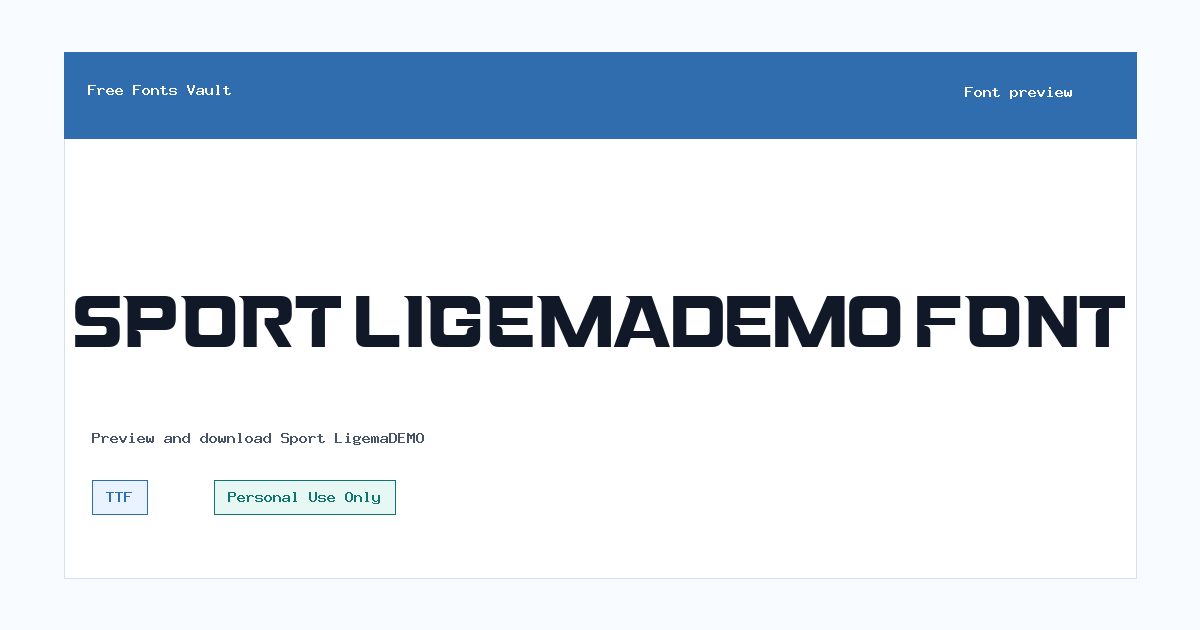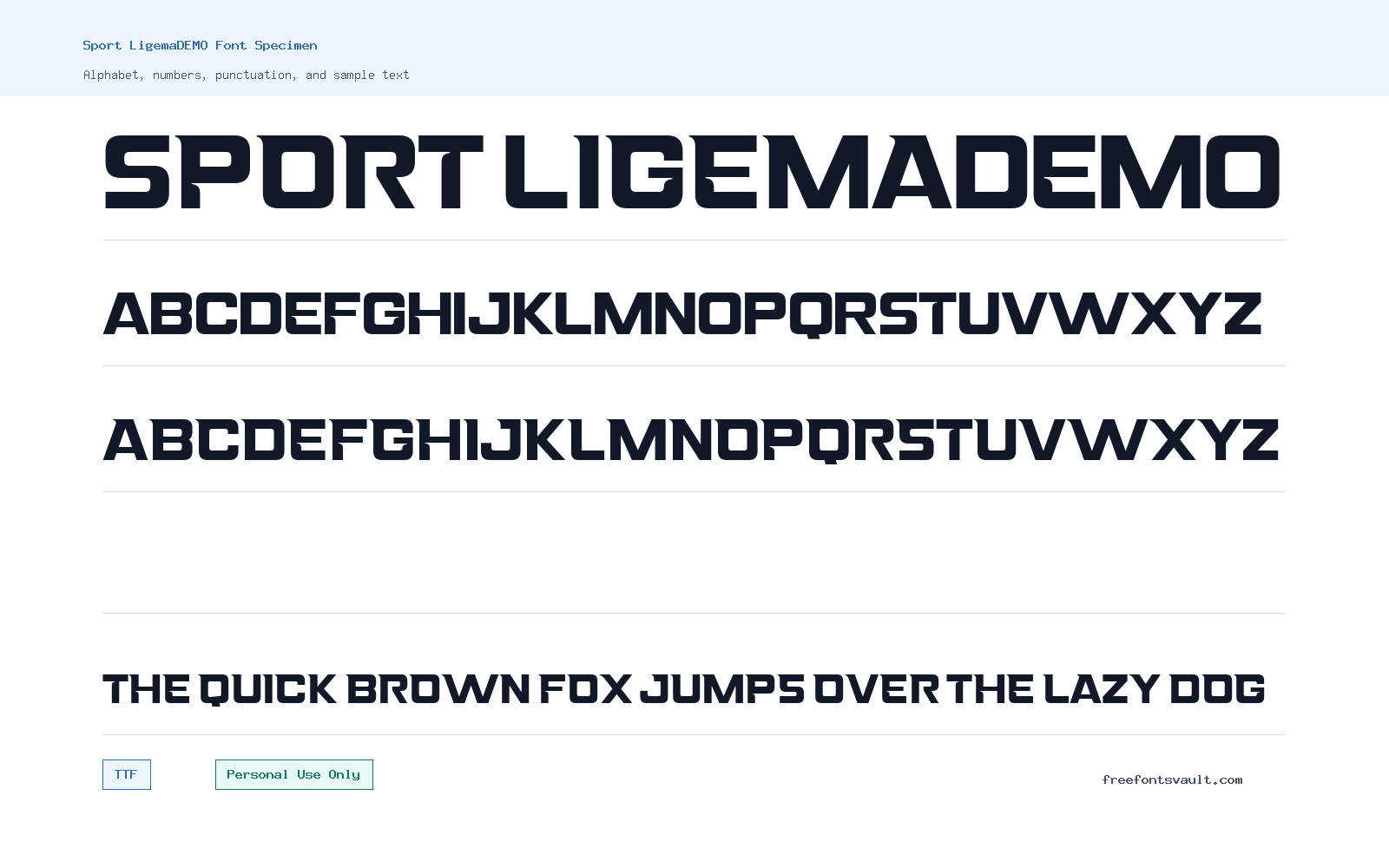
Sport LigemaDEMO
Sport LigemaDEMO font preview showing the family name
Sport LigemaDEMO Font
Sport LigemaDEMO font specimen showing alphabet, numbers, and sample text
Sport LigemaDEMO font.
Sport LigemaDEMO is a regular-weight TTF display font with a name and presentation that point toward athletic, team, and headline-style design work. It is best approached as a title font: use the preview tool to test short words, numbers, and logo-style layouts before downloading.
About Sport LigemaDEMO Font
Sport LigemaDEMO is listed as a display font and comes in a regular style with normal weight. The family name suggests a sports-oriented direction, so it may suit designs that need a strong title treatment, such as team graphics, match posters, jersey-inspired mockups, gym branding concepts, event headers, and social media artwork. Use the preview to judge it with your own wording. Try team names, initials, numbers, and short slogans to see how the letter spacing, curves, and overall rhythm work at different sizes.
For practical design work, keep Sport LigemaDEMO focused on display settings rather than long reading. Fonts made for titles often look best when they are used in short bursts: a poster headline, a badge, a YouTube thumbnail, a sports flyer, a logo draft, or a bold web hero section. If you are testing it for logo work, preview both uppercase and lowercase text, then check whether the key letters in the brand name remain clear when scaled down. For web mockups, use it for headings or graphic accents and pair it with a plain sans serif for body copy, navigation, captions, and forms. This keeps the sporty display tone without making the layout hard to read.
• Display-font positioning suited to short titles, sports-themed graphics, and bold mockup use.
• Works best when tested with brief words, numbers, initials, team names, and poster-style headings.
• Practical for logo drafts, badge concepts, event graphics, social posts, and web hero text when paired with a simpler body font.
• Sports posters and event flyers
• Team-name graphics and jersey-inspired mockups
• Logo concepts, badges, and emblem drafts
• Gym, fitness, tournament, or match-day social posts
• Large website headings and landing-page hero text
• YouTube thumbnails, banners, and bold promotional artwork
Use Sport LigemaDEMO for short, high-impact text rather than paragraphs. In the preview, test your exact title, numbers, and any brand initials. Check readability at small sizes, especially if the design will appear on mobile screens, thumbnails, jerseys, stickers, or printed merchandise. Pair it with a clean sans serif such as a neutral grotesk or humanist sans for supporting text so the layout stays readable.
What kind of projects is Sport LigemaDEMO good for?
It is most useful for short display text such as sports posters, team graphics, event titles, logo drafts, badges, thumbnails, banners, and bold web headings.
Is Sport LigemaDEMO good for body text?
It is better for display use. For paragraphs, captions, menus, or long website text, pair it with a simpler and more readable sans serif font.